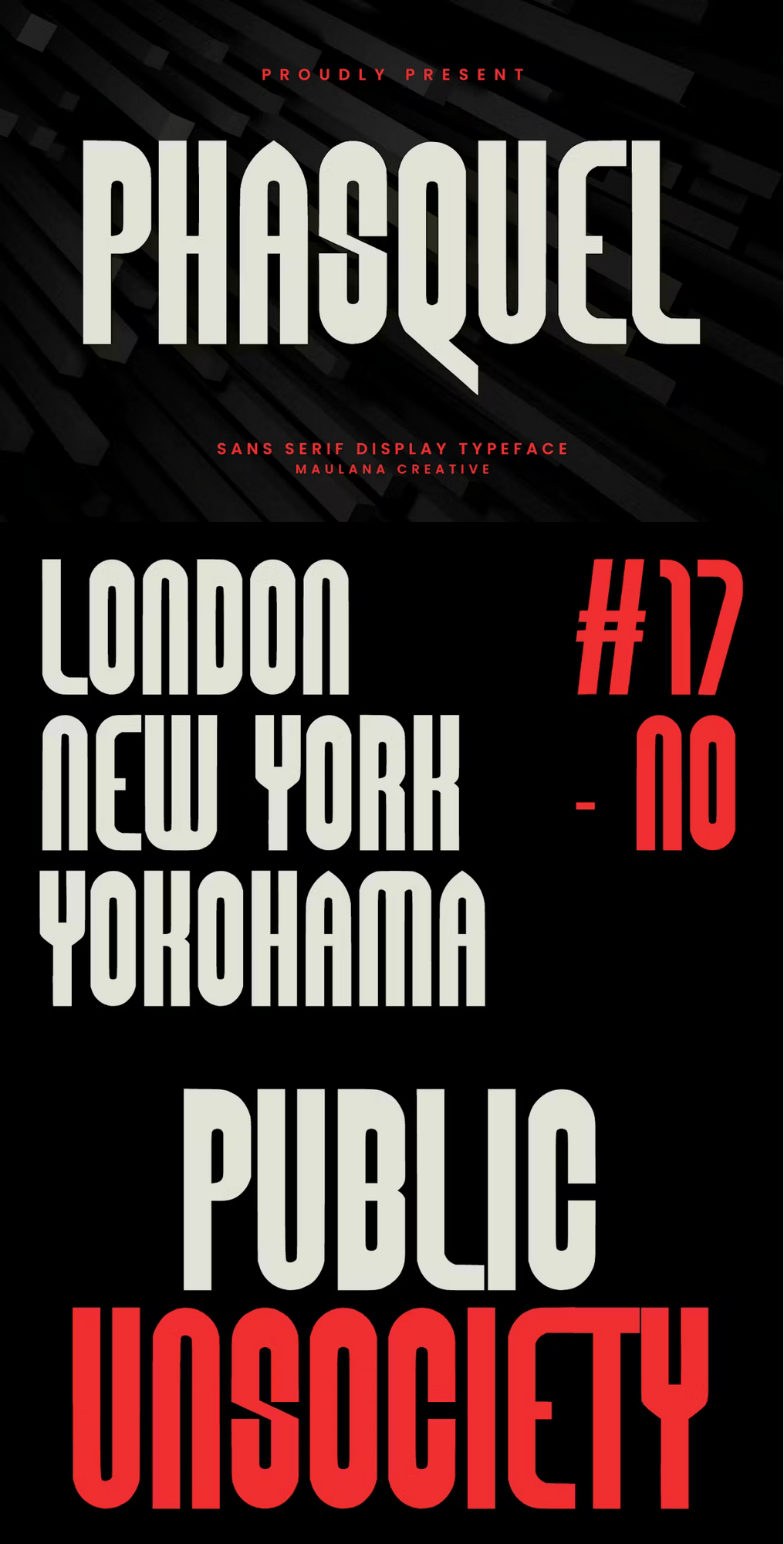
Phasquel is a Condensed sans Display font. Regular stroke, fun character with a bit of ligatures and alternates. To give you an extra creative work. Phasquel font support multilingual more than 100+ language. This font is good for logo design, Social media, Movie Titles, Books Titles, a short text even a long text letter and good for your secondary text font with script or serif. Make a stunning work with Phasquel font.